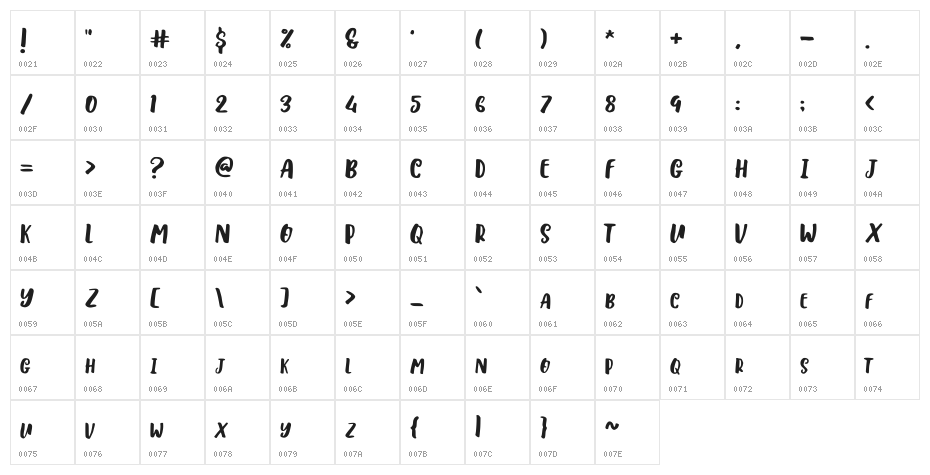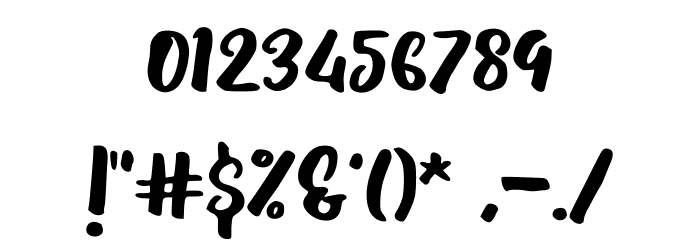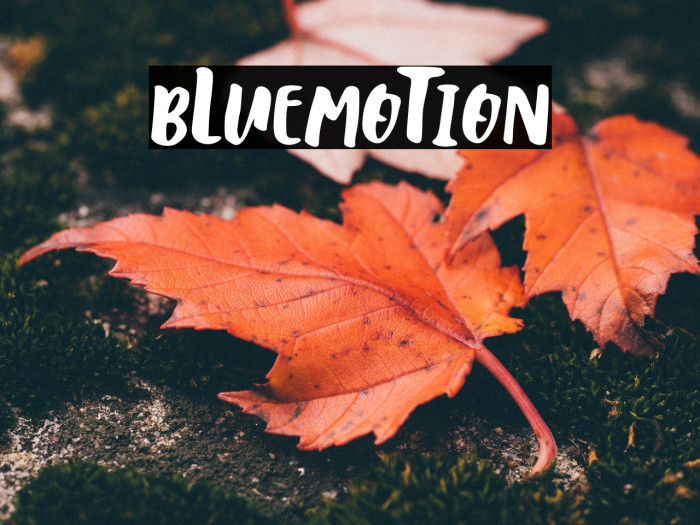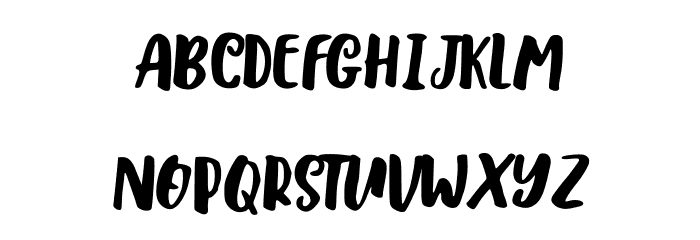
bLuemoTion Font
bLuemoTion Description
This font features a bold and playful style with a handwritten appearance. The letters are rounded and slightly slanted, giving it a casual and friendly vibe. The uppercase and lowercase characters maintain a consistent flow, with smooth curves and a dynamic rhythm. The numbers and special characters are designed to match the playful aesthetic, making them suitable for creative and informal projects. The overall look is cohesive and visually appealing, ideal for capturing attention in a fun and engaging way.
| Proposed Projects | Ideal for greeting cards, children's books, playful branding, and social media graphics. |